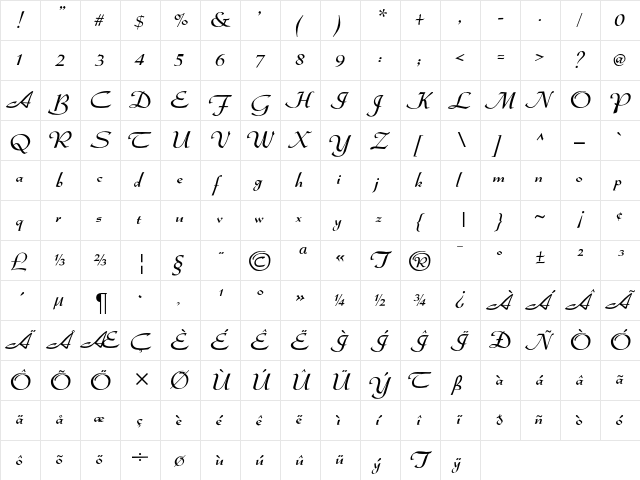
DS Admiral Regular
| Designer | Typographer Mediengestaltung |
Design Context for DS Admiral Typeface
DS Admiral is a composed and adaptable typeface that performs quietly and consistently across a wide range of design contexts.